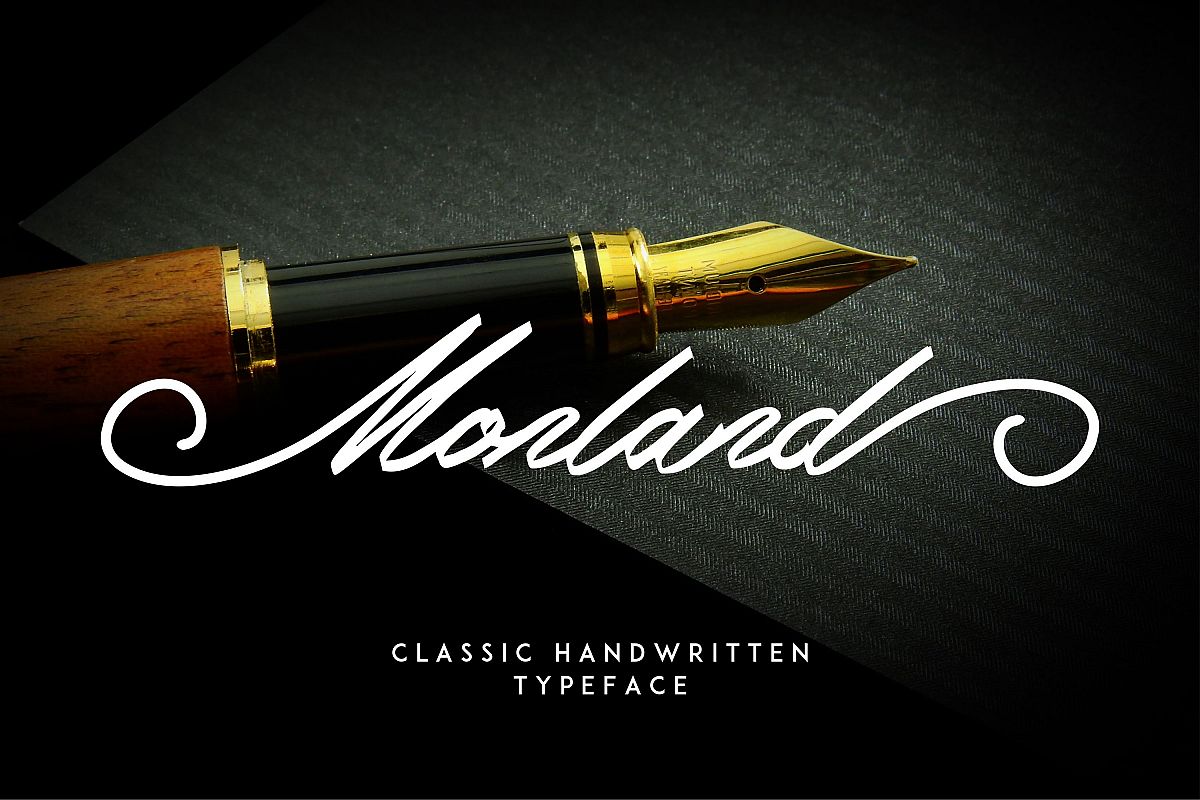
Monland Script | Classic Handwritten
Introduce:
The Monland script is a modern handwriting that has a classic style. With a soft, stylish and distinctive touch. Monland scripts are perfect for branding projects, household design, product packaging, brand logos, or stylish text overlays for any background image